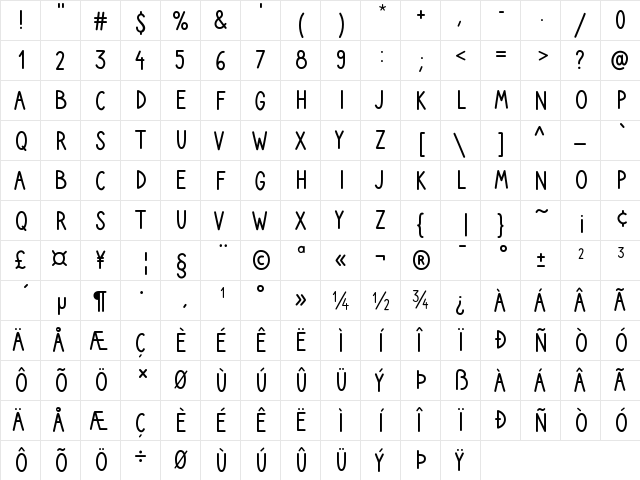
Lumie Medium Font Preview
Lumie Medium
Design Context for Lumie Typeface
Lumie offers clean, dependable letterforms without strong stylistic allegiance, making it a practical choice for designers who need flexibility.
Pro Tip: Pair Lumie with a font of contrasting weight or personality to build a more expressive typographic hierarchy.